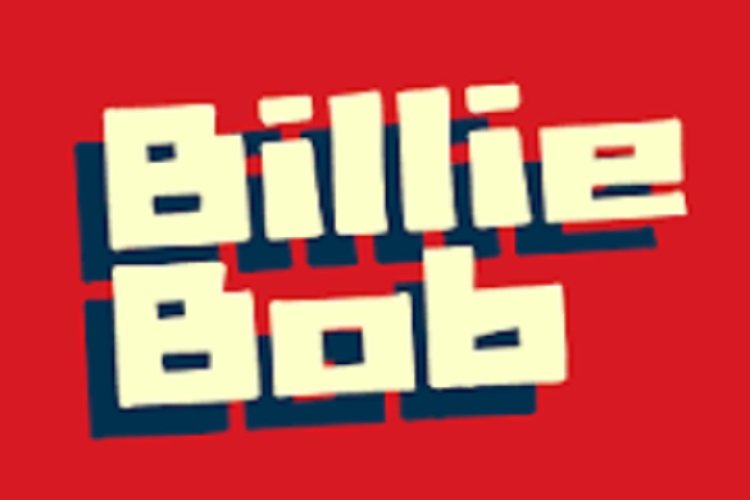
Billie Bob Font
Billie Bob is a unique retro free font to be used on any retro projects such as flyer, poster, t-shirt, etc. Designed to be eye-catching and fun to make your message stand out of the crowd.